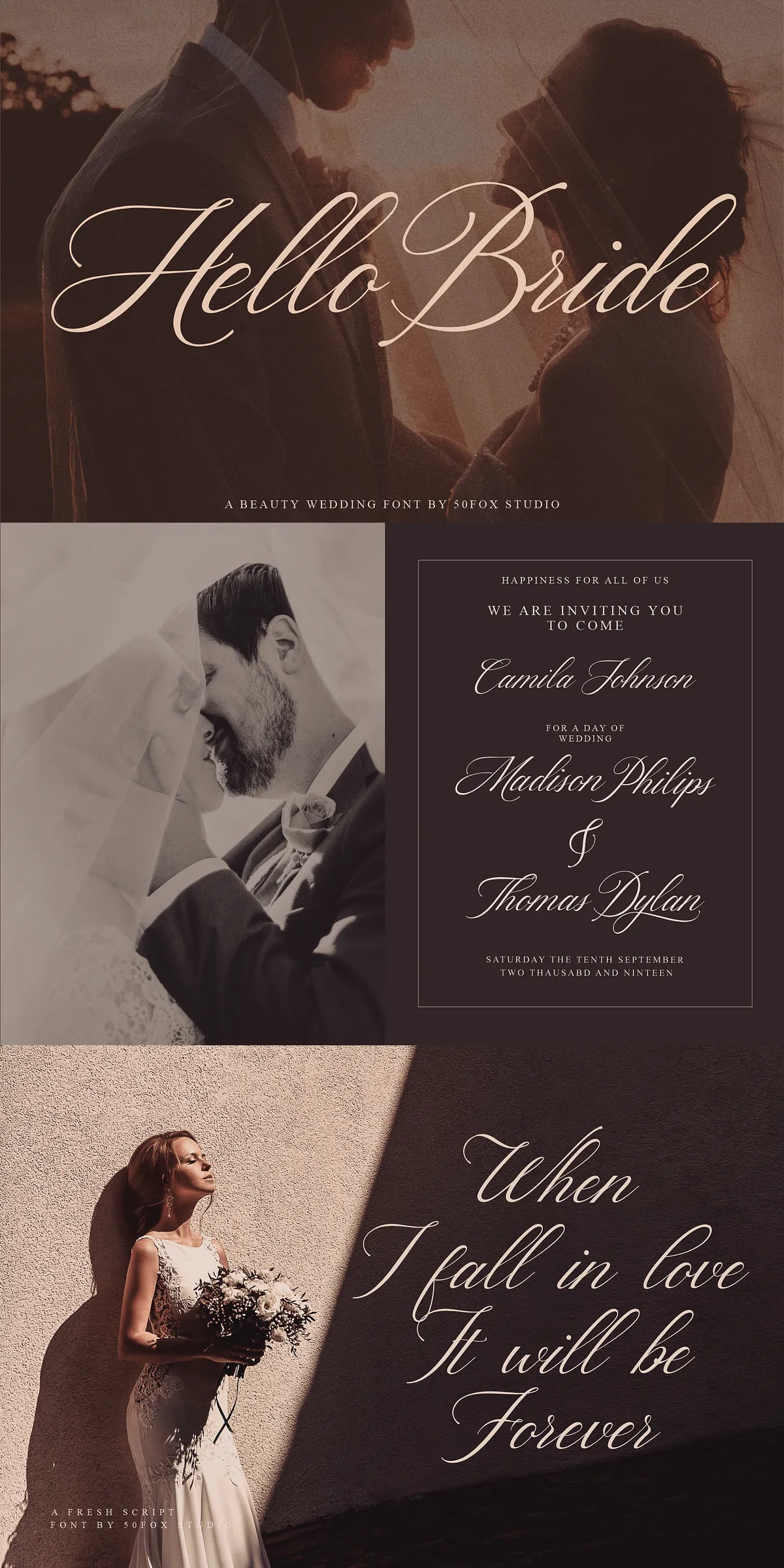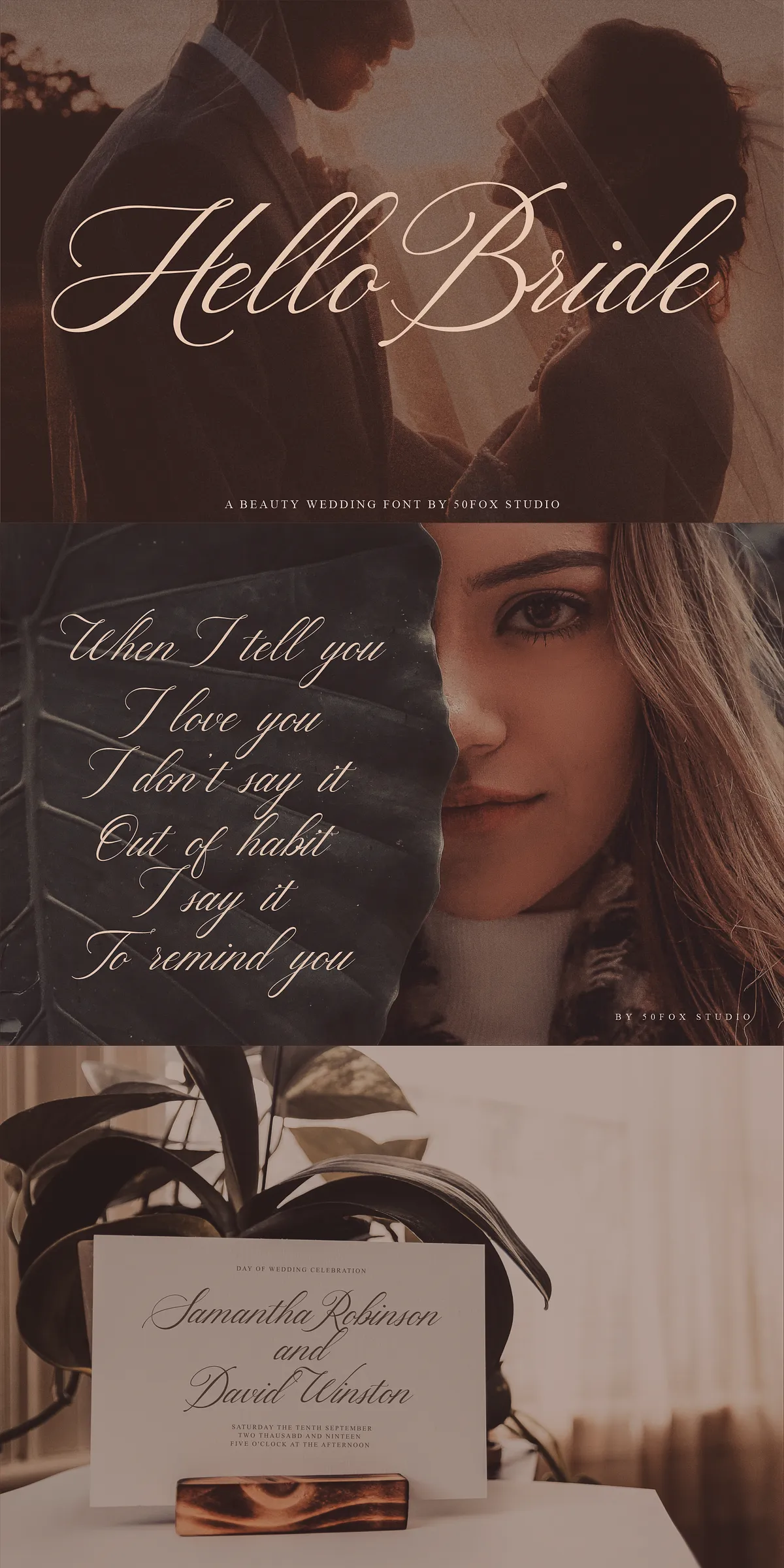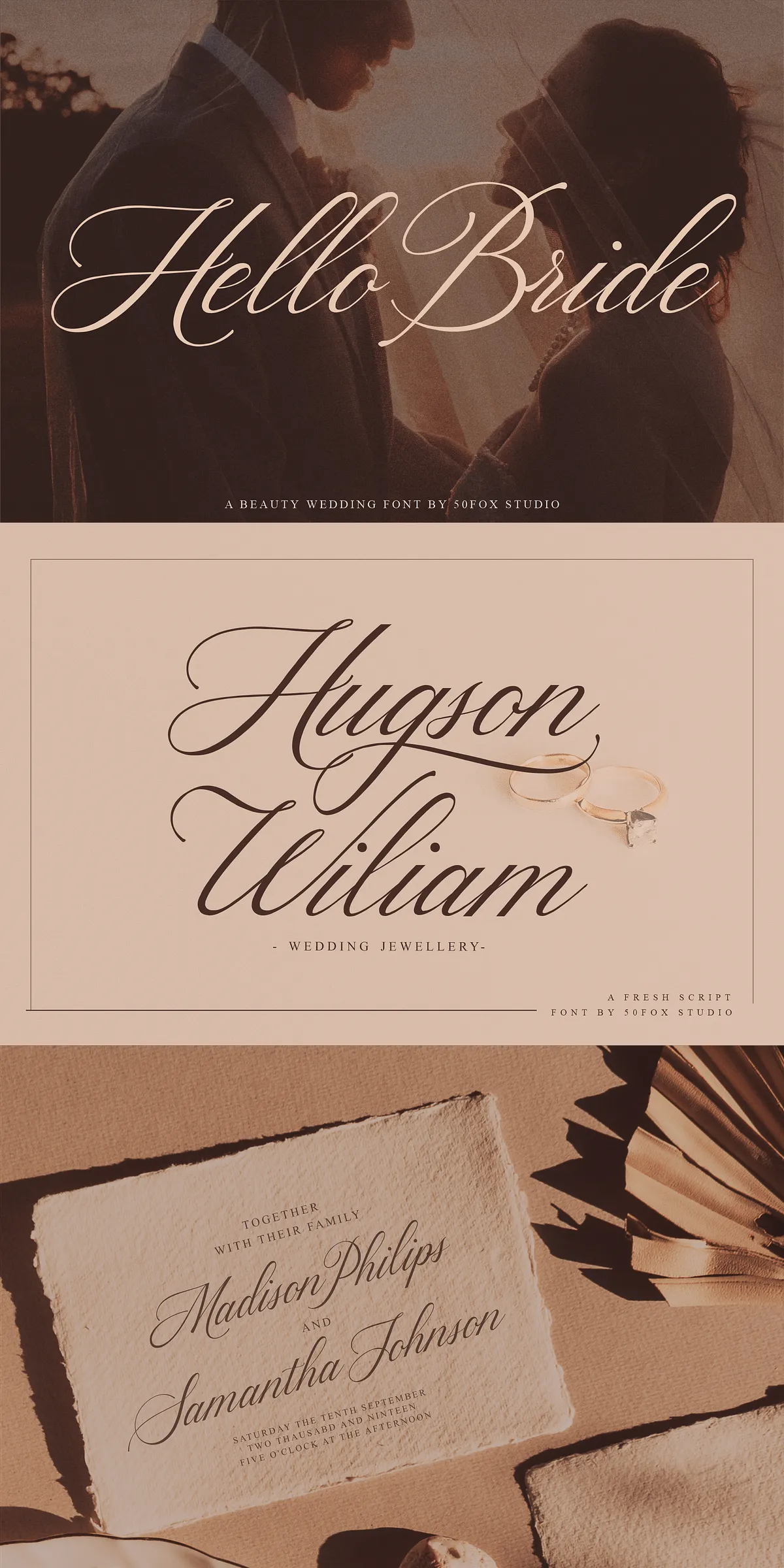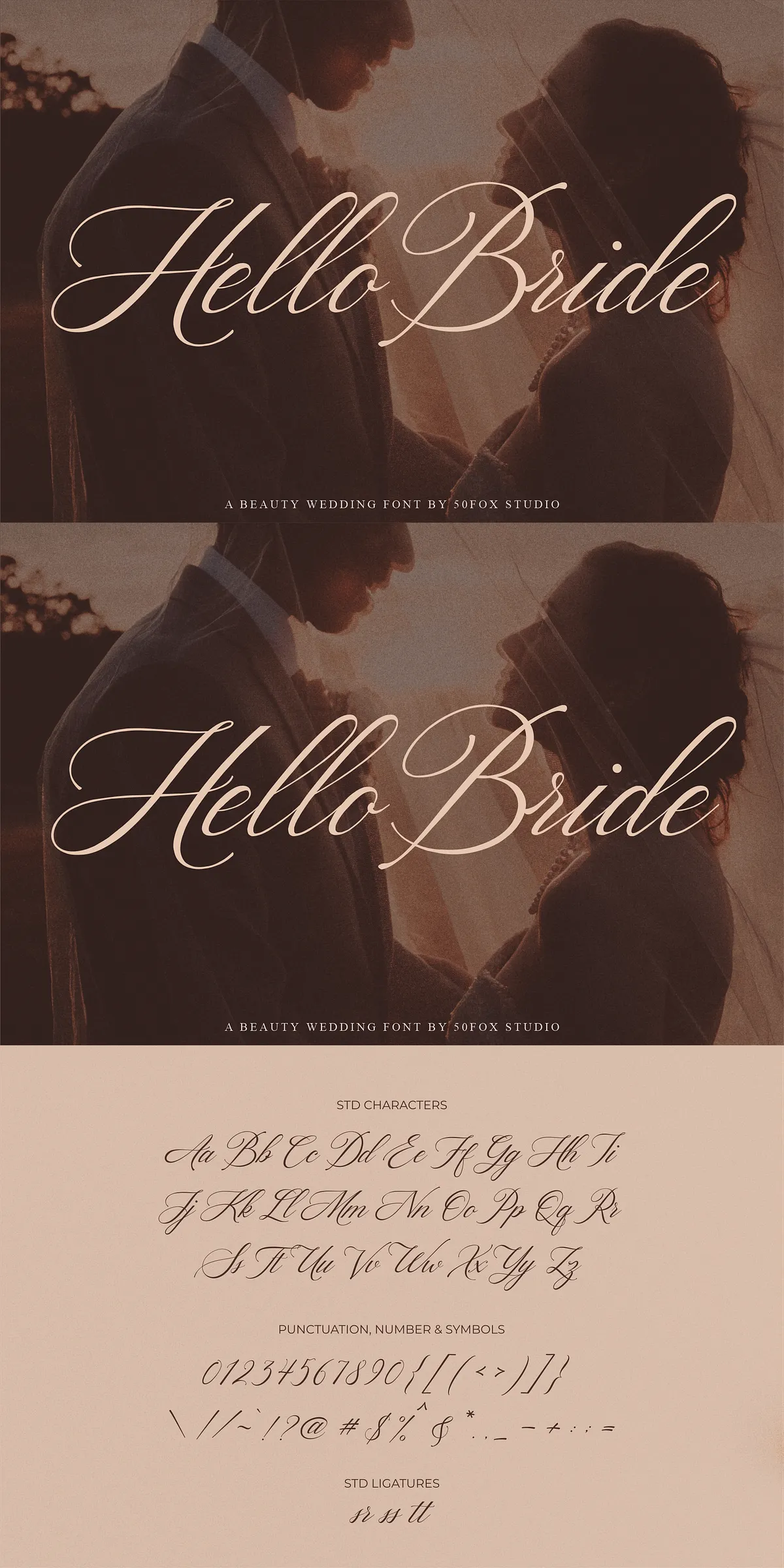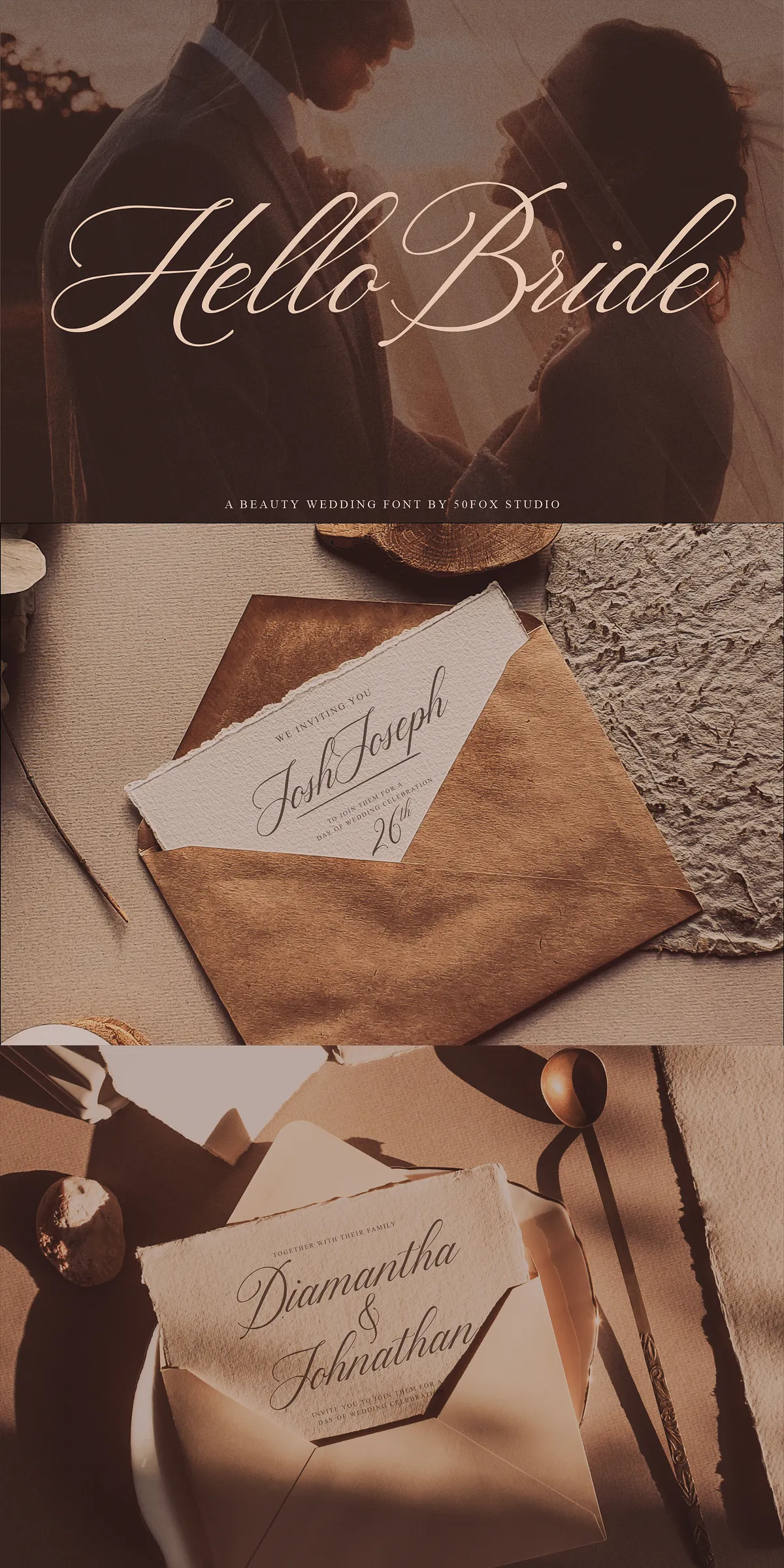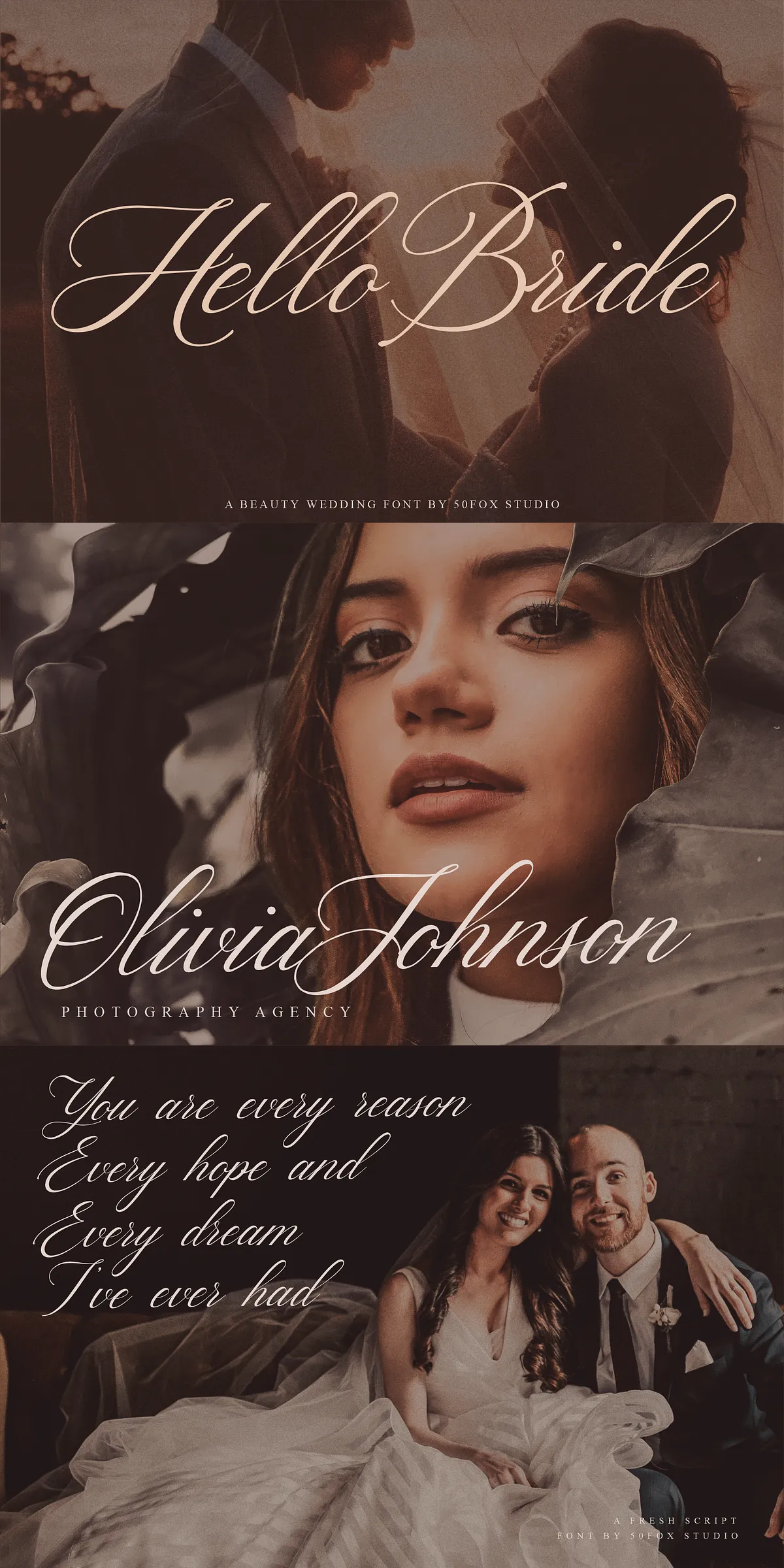
Transform your design projects with Hello Bride Font — a stunning, high-end calligraphy typeface crafted for those who demand sophistication, drama, and grace. Designed for luxury weddings, engagement ceremonies, and premium branding, this font radiates timeless elegance with every flowing line. Its bold, expressive strokes and grand ligatures command attention, making it the ultimate choice for creating unforgettable visual moments.
Why Hello Bride Stands Out in Premium Design
Hello Bride isn’t just a font — it’s a statement of refinement. With its pronounced swashes, dramatic character connections, and luxurious texture, it delivers the authentic feel of hand-lettered artistry, perfect for high-impact projects. Whether you’re designing an exclusive wedding invitation suite, a luxury boutique brand identity, or a flagship poster for a high-end event, Hello Bride ensures your message doesn’t just communicate — it mesmerizes.
Powerful Typography Features for Creative Mastery
Unleash the full potential of your creative vision with Hello Bride’s professional-grade typographic features:
- Extensive ligature set – Seamless, visually rich connections between letters create a fluid, handcrafted flow that elevates standard text into art.
- Abundant alternative characters – Choose from multiple stylistic variations for each letter, giving you unmatched control over your design’s aesthetic.
- Full uppercase and lowercase alphabet – Perfect for both impactful headlines and elegant body content.
- Comprehensive punctuation & symbols – Ensure flawless integration in all typographic layouts.
Every character is crafted with precision, designed to be versatile across print and digital formats while maintaining its luxurious presence.
Ideal for High-End Applications and Signature Projects
Discover the perfect match for premium visual storytelling:
- Wedding & engagement invitations – Make your guests feel the magic before the ceremony even begins.
- Luxury branding & logos – Stand out in crowded markets with a name that feels exclusive and memorable.
- Apparel & fashion accessories – Print on t-shirts, scarves, bags, and hats with instant style and sophistication.
- Printed quotes & wall art – Create gallery-worthy designs that captivate viewers with emotional depth and elegance.
- Posters, packaging, and digital ads – Command attention in any medium with bold, expressive typography.
- Greeting cards & certificates – Turn everyday messages into keepsakes with a personal, handcrafted feel.